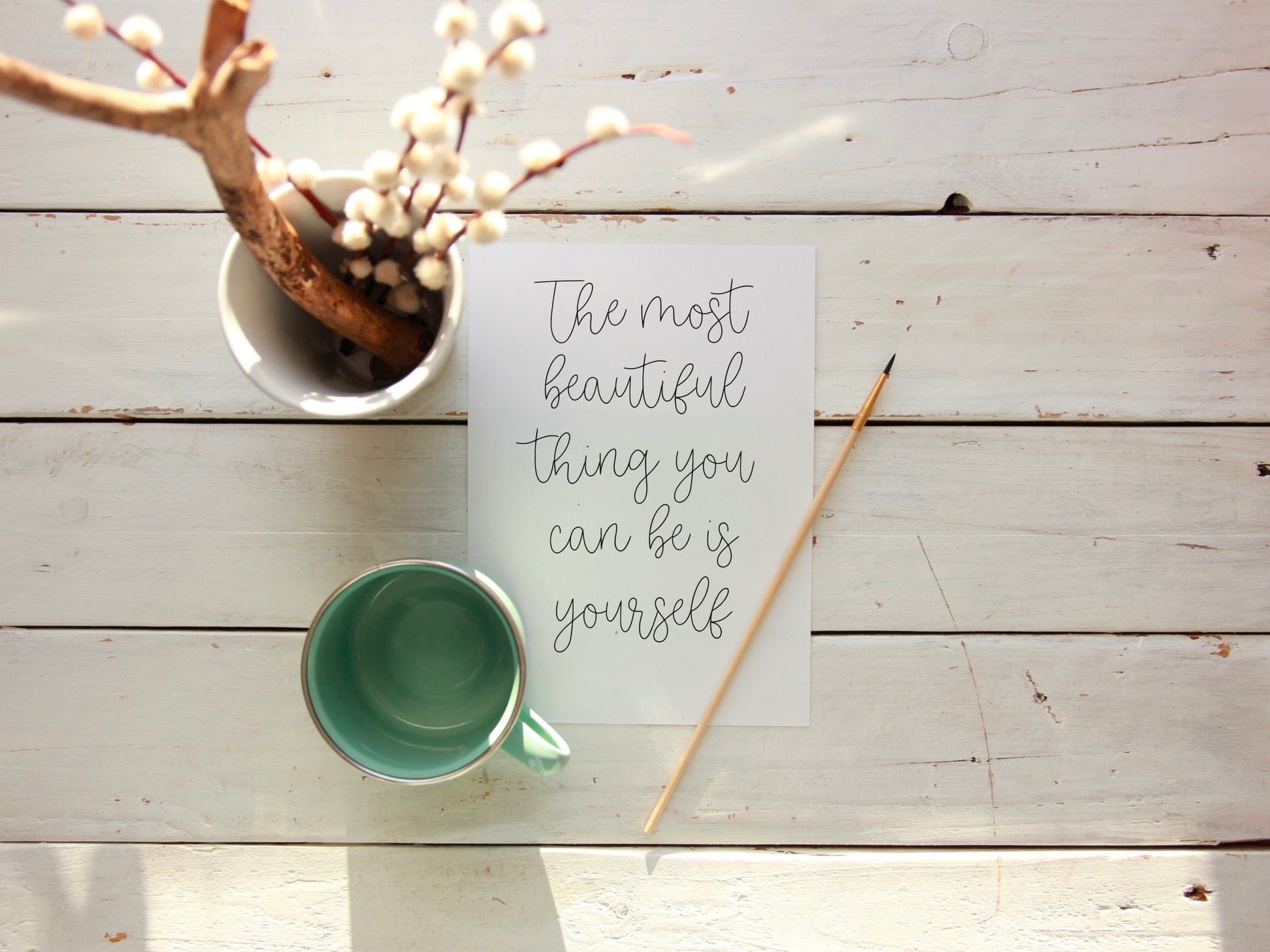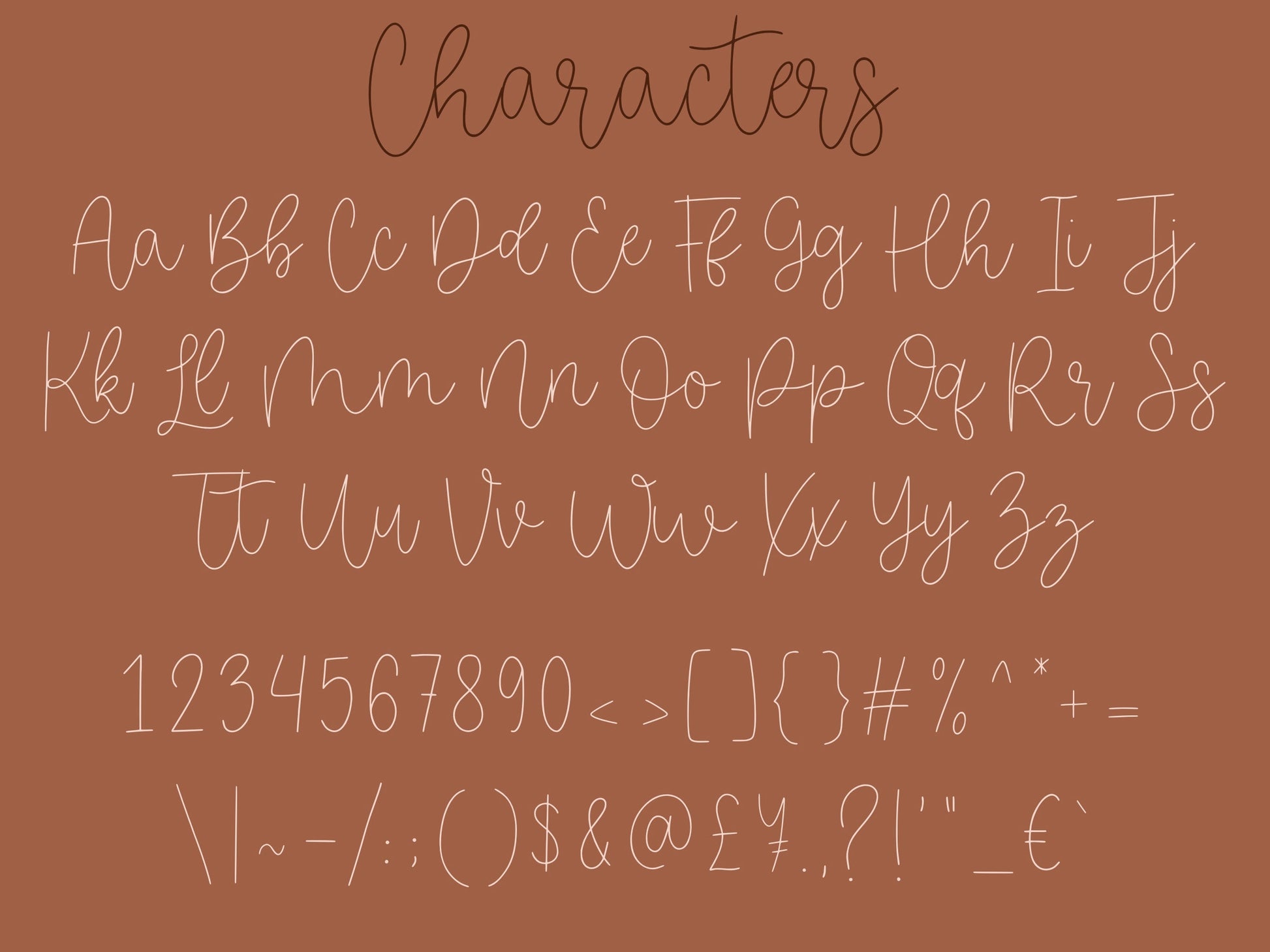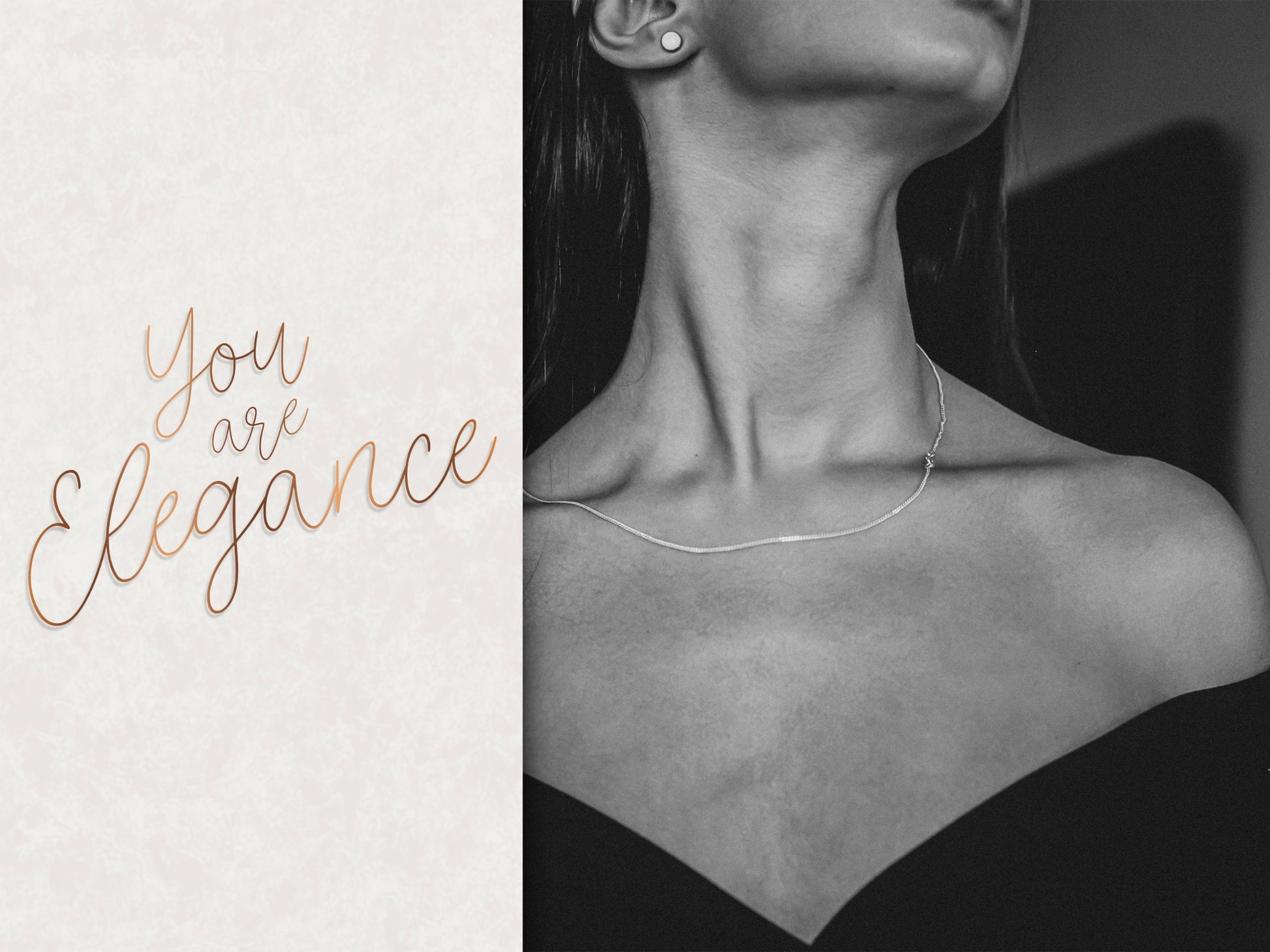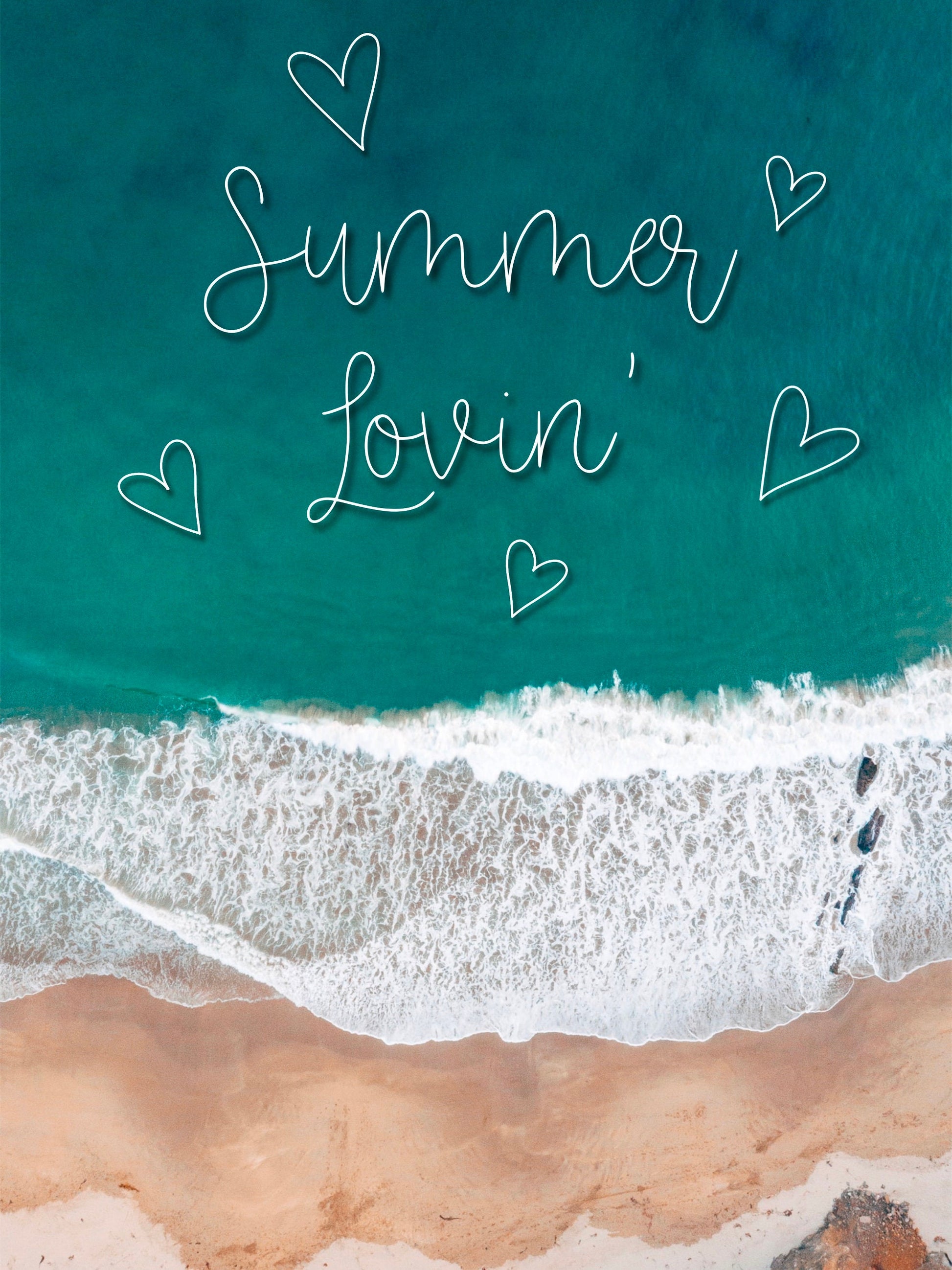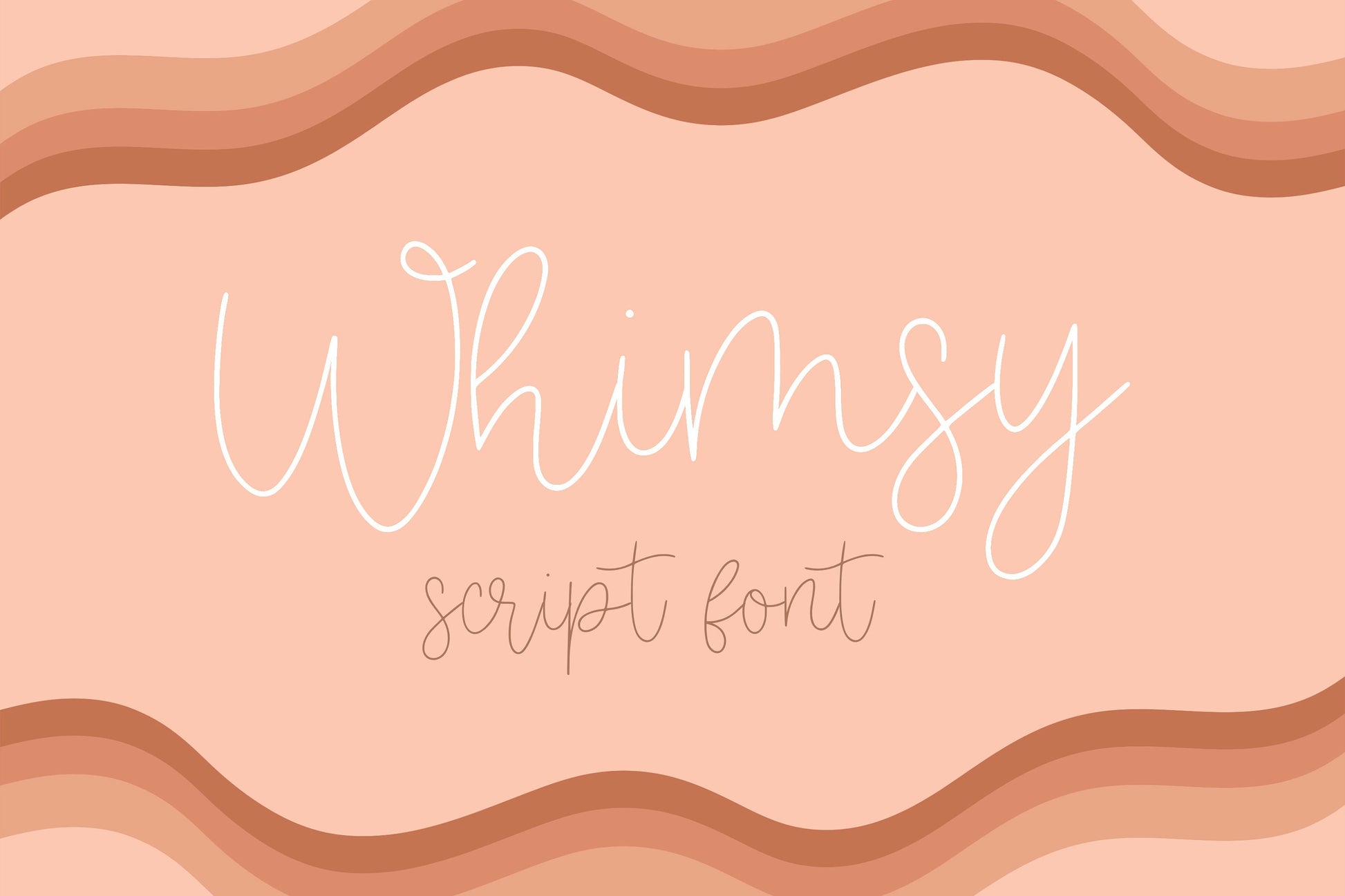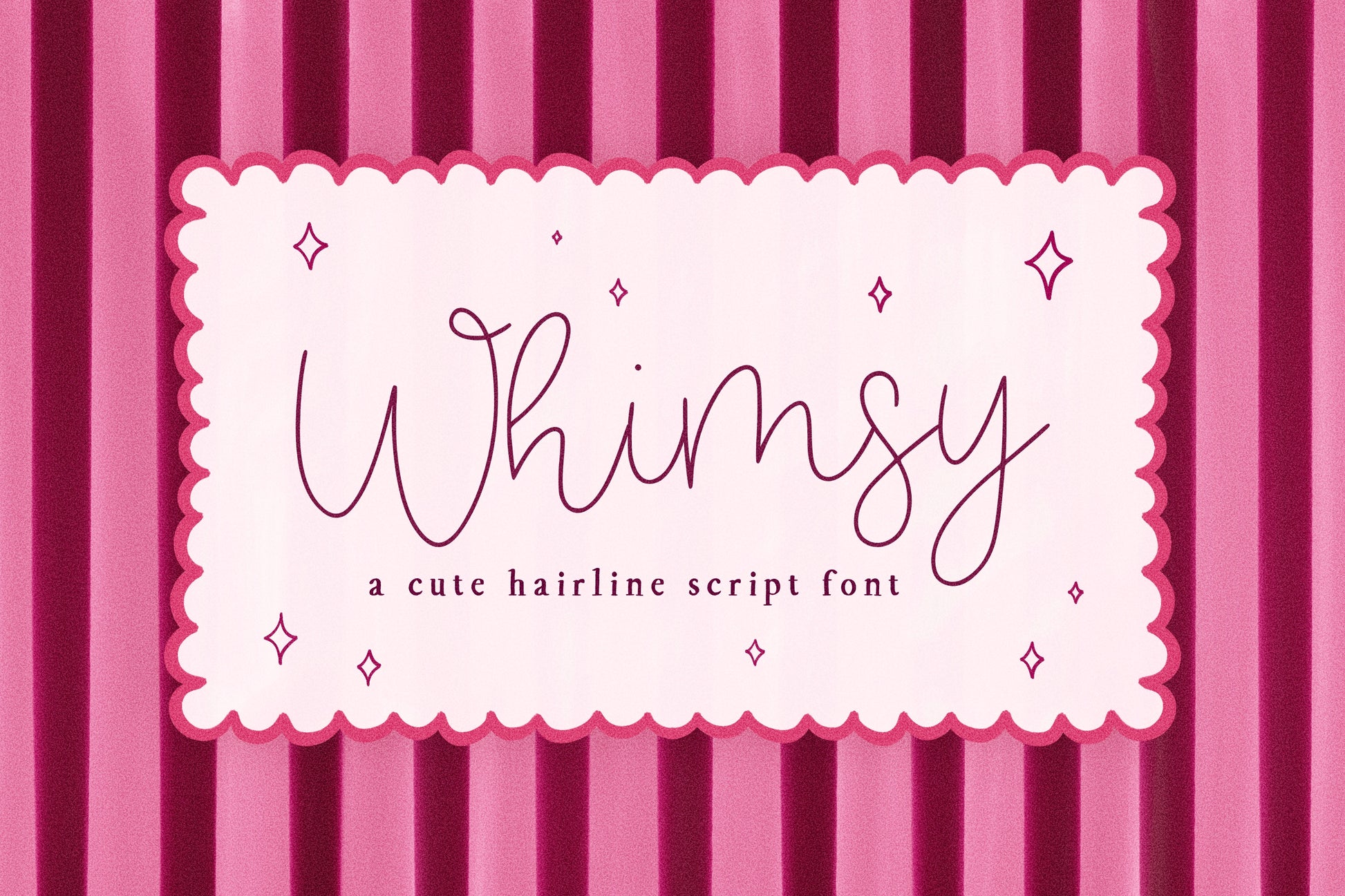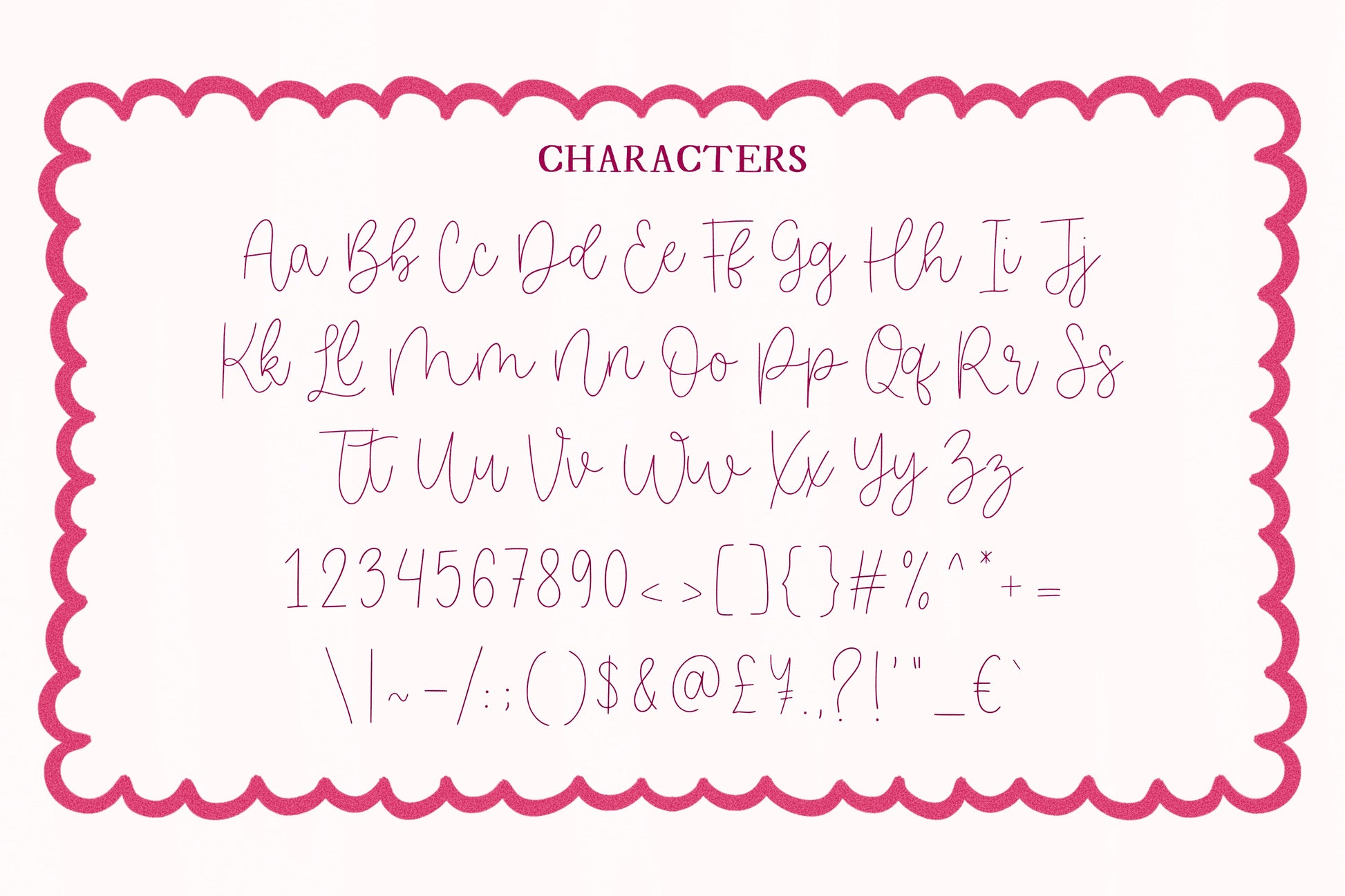
Whimsy Handwritten Script Font
This is my Whimsy handwritten/hand drawn font. This unique, thin monoline font will add a bouncy, fun, handmade touch to your design! This versatile font is great for formal and elegant designs, but is also great for casual, playful occasions too!